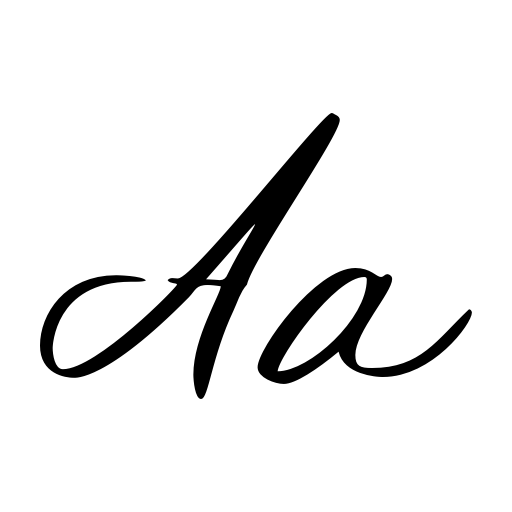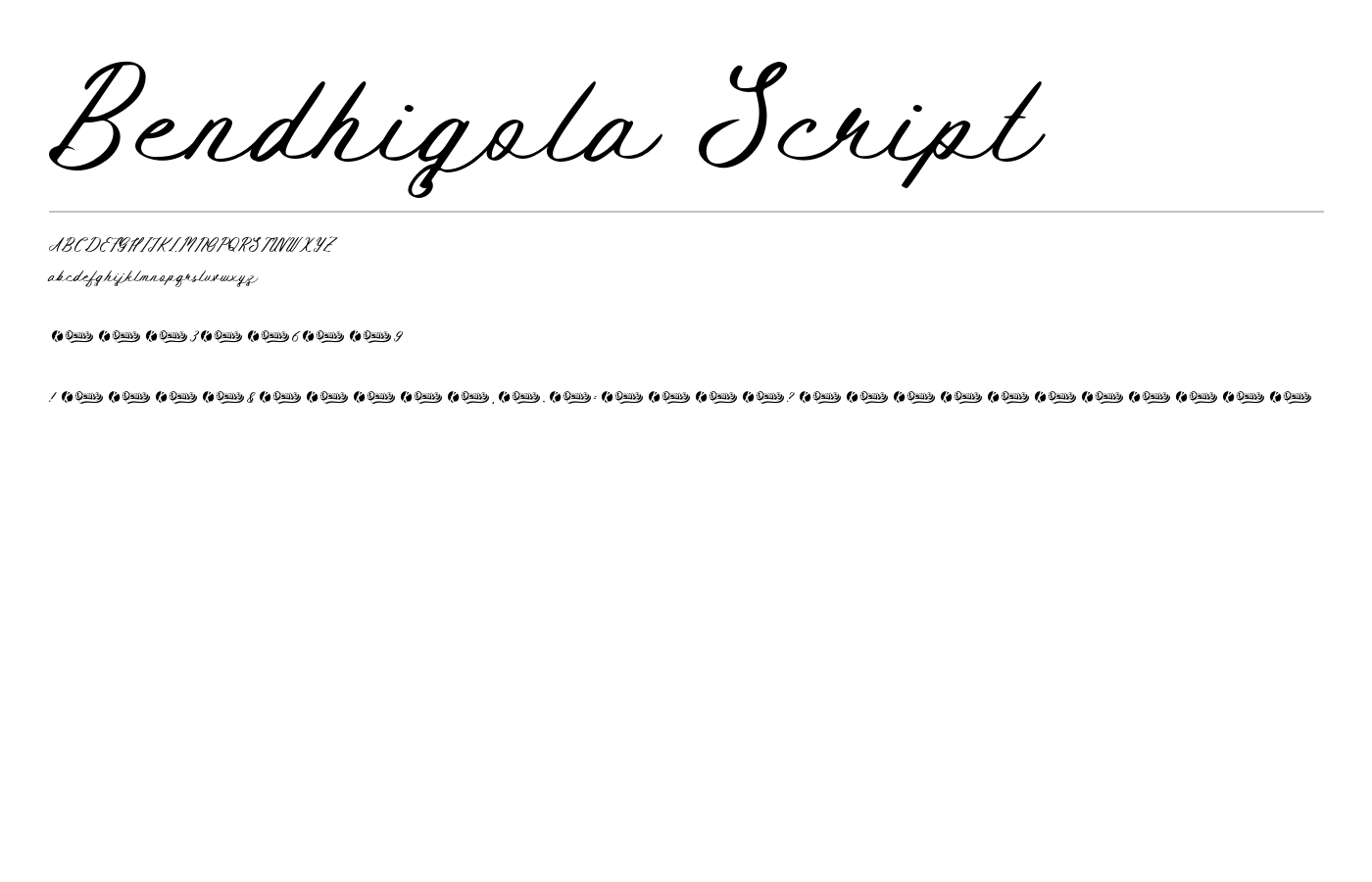
Bendhigola Script is an elegant and flowing handwritten font featuring delicate, thin strokes with a consistent weight and smooth, connected letterforms. Its refined, cursive style with graceful loops and a moderate x-height gives it a sophisticated yet approachable feel, making it ideal for invitations, branding, and feminine or creative projects where a personal, stylish touch is desired. This font works best in headlines and decorative uses rather than body text due to its intricate design.
Bendhigola Script Font
About Bendhigola Script Font
| Font family | Bendhigola Script Font |
| Designer | Rioniga Zandy |